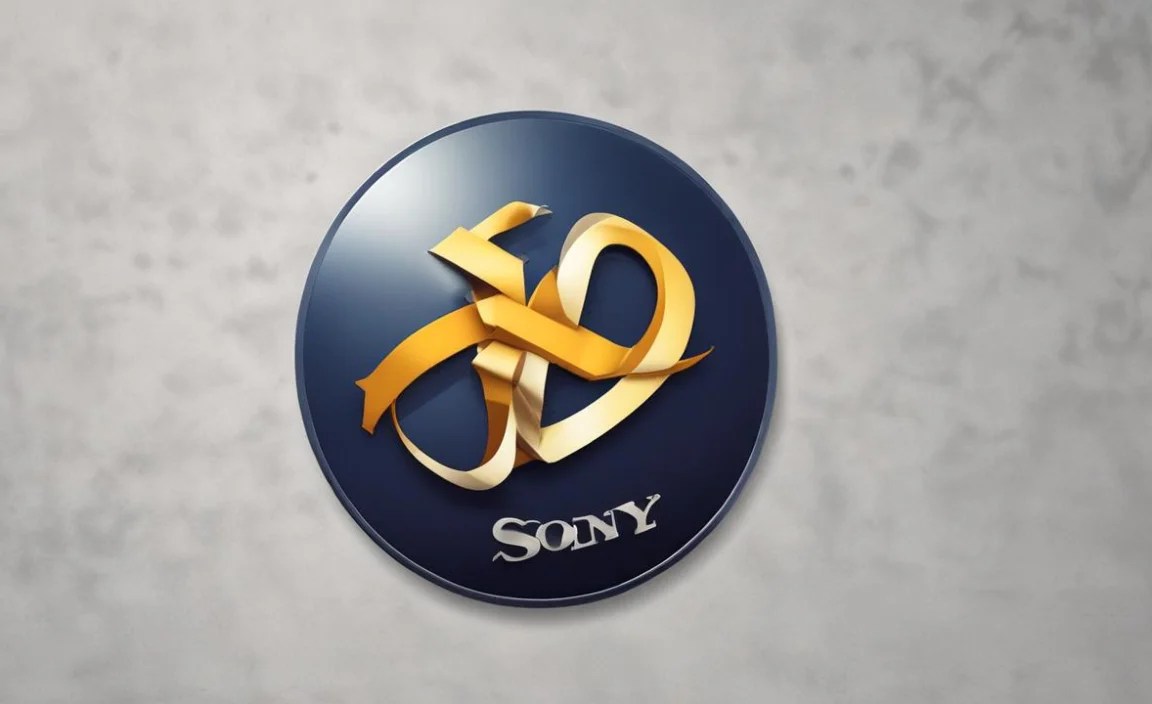
Sony Corporation, a globally recognized leader in electronics and entertainment, has a storied history reflected in its iconic logo. Established in 1946 by Masaru Ibuka and Akio Morita, Sony introduced its first logo in 1957, featuring the company’s name within a square-shaped box.
Over the years, the logo has undergone several refinements, with the current version, introduced in 1973, using a slab serif typeface similar to Clarendon, designed by Robert Besley.
Sony Logo Font Family Includes
- Sony Logo Regular
| Style: | Slab Serif |
Notable Uses Of Sony Logo Font
The Sony Logo Font is widely used in:
- Branding for electronic products
- Corporate communications
- Marketing materials
- Product packaging
- Advertising campaigns
- Website design
The Sony Logo Font is prominently featured in Sony’s branding across various media, including product packaging, corporate documents, advertisements, and digital platforms. Its clean and professional appearance is ideal for high-profile brands and global companies.
The Sony Logo Font, characterized by its refined slab serif style, has been an integral part of Sony’s brand identity since 1973. Its clean, classic design continues to represent the company’s commitment to quality and innovation. For personal or commercial use, make sure to check the appropriate licensing for similar fonts.
3.Who Designed The Sony Logo Font?
The Sony Logo Font is similar to Clarendon, which Robert Besley designed. The actual Sony logo was modified from this base to fit the brand’s requirements.